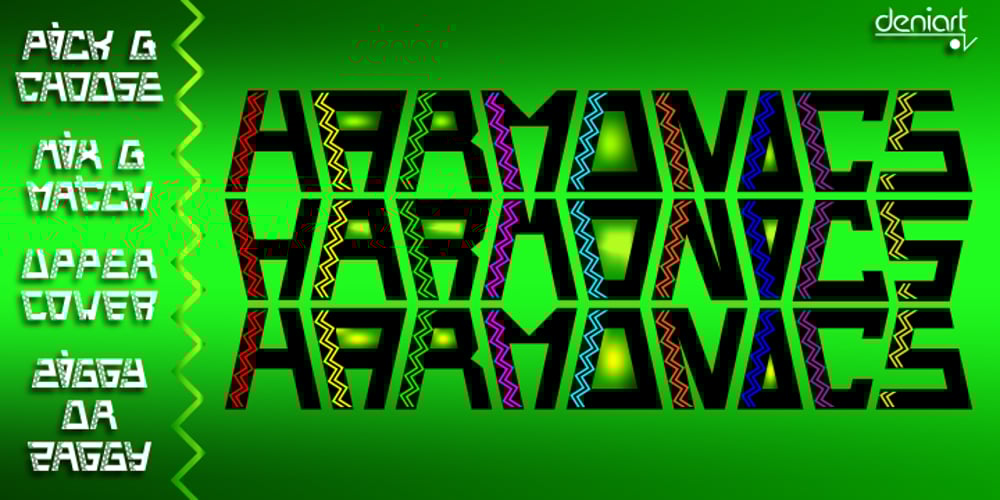
Harmonics Font Family was designed by Denise Koehler and published by Deniart Systems. Harmonics contains 1 styles and family package options. ADD A LITTLE ZIG AND ZAG with Harmonics – a bold and angular font great for short texts and headlines. Create different affects by toggling between lowercase and uppercase letters – use lowercase for top-heavy triangular text, use uppercase for bottom-heavy triangular text, or mix upper & lower for a zig-zag affect. A great addition to any library.